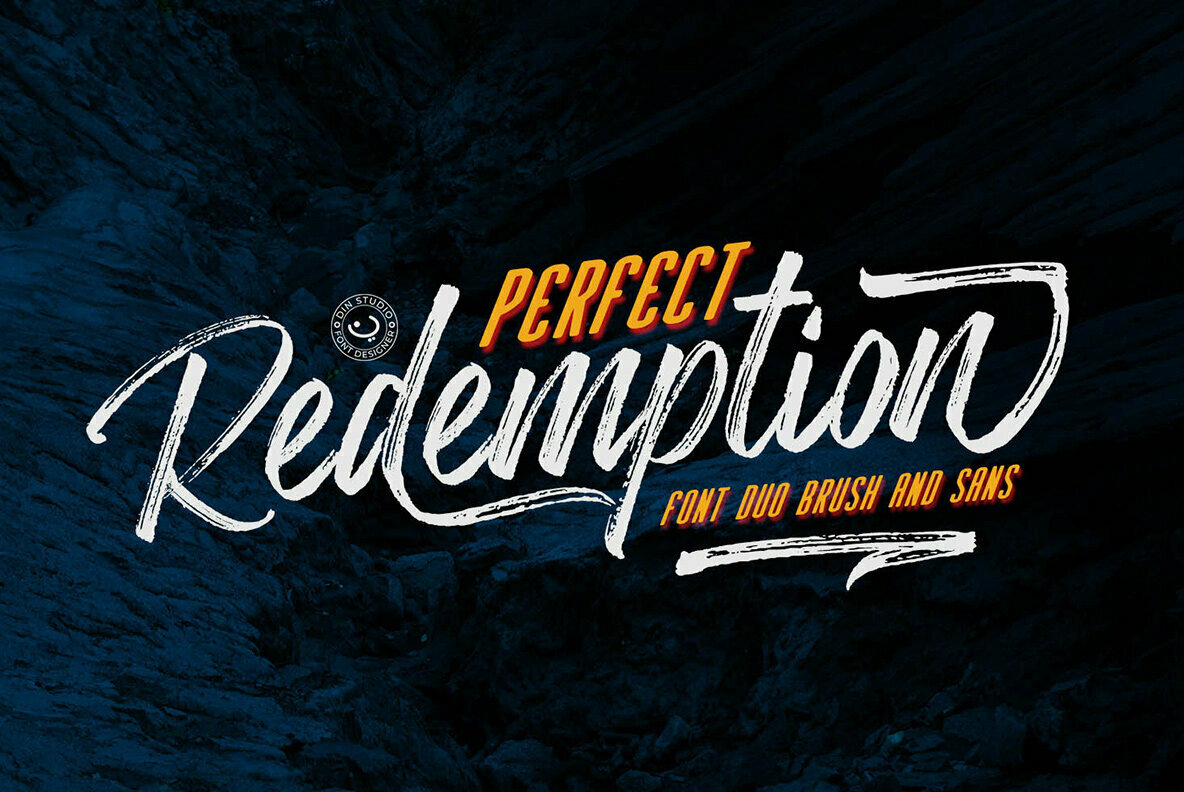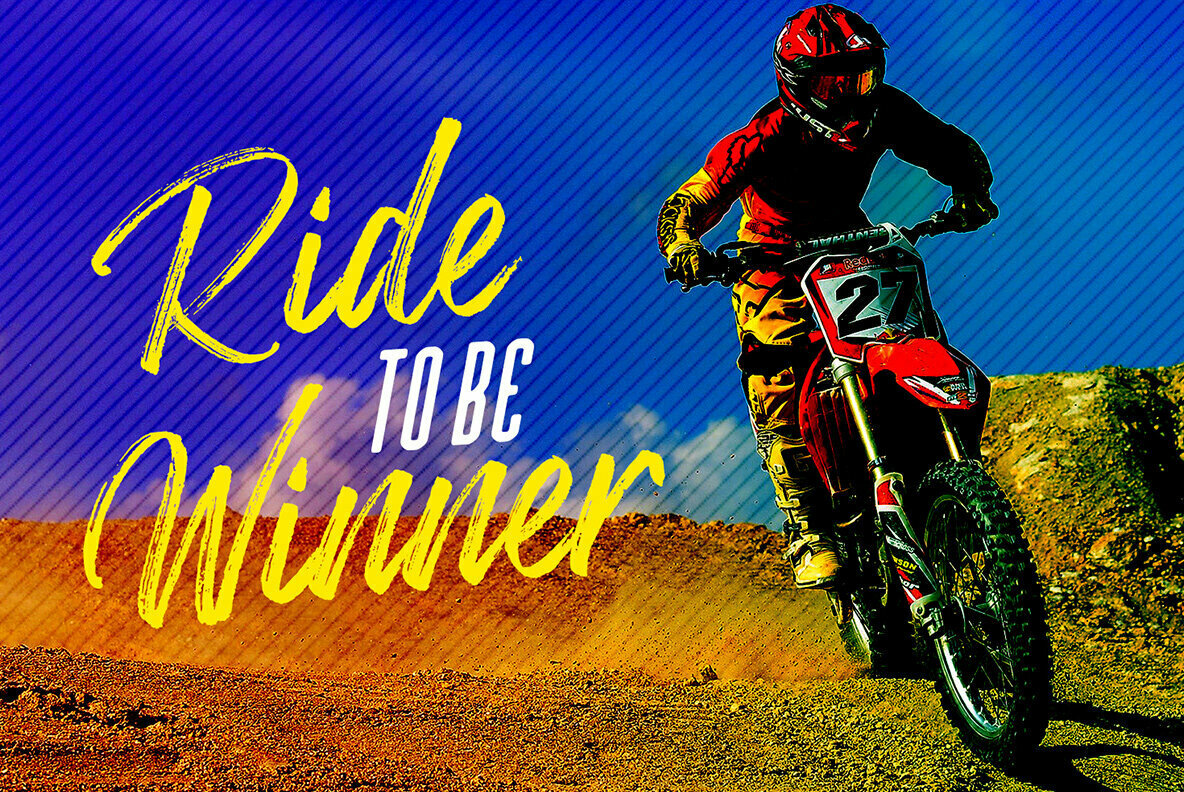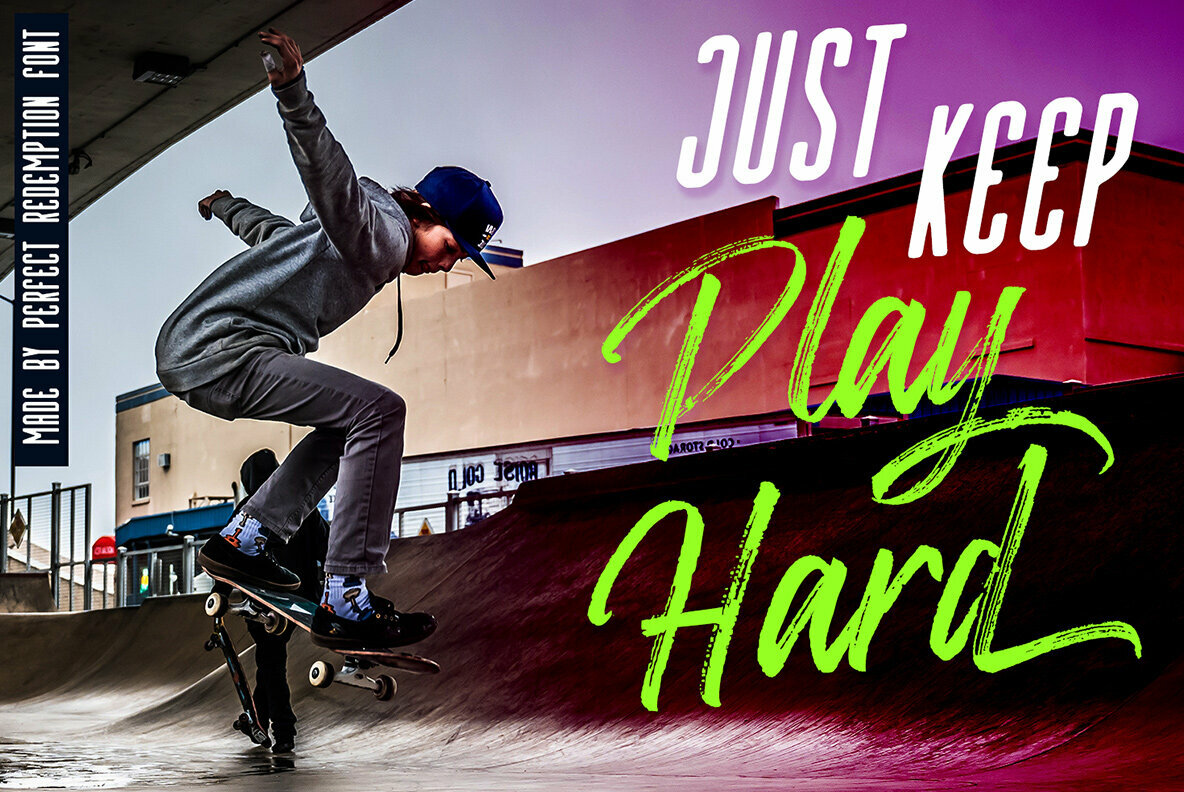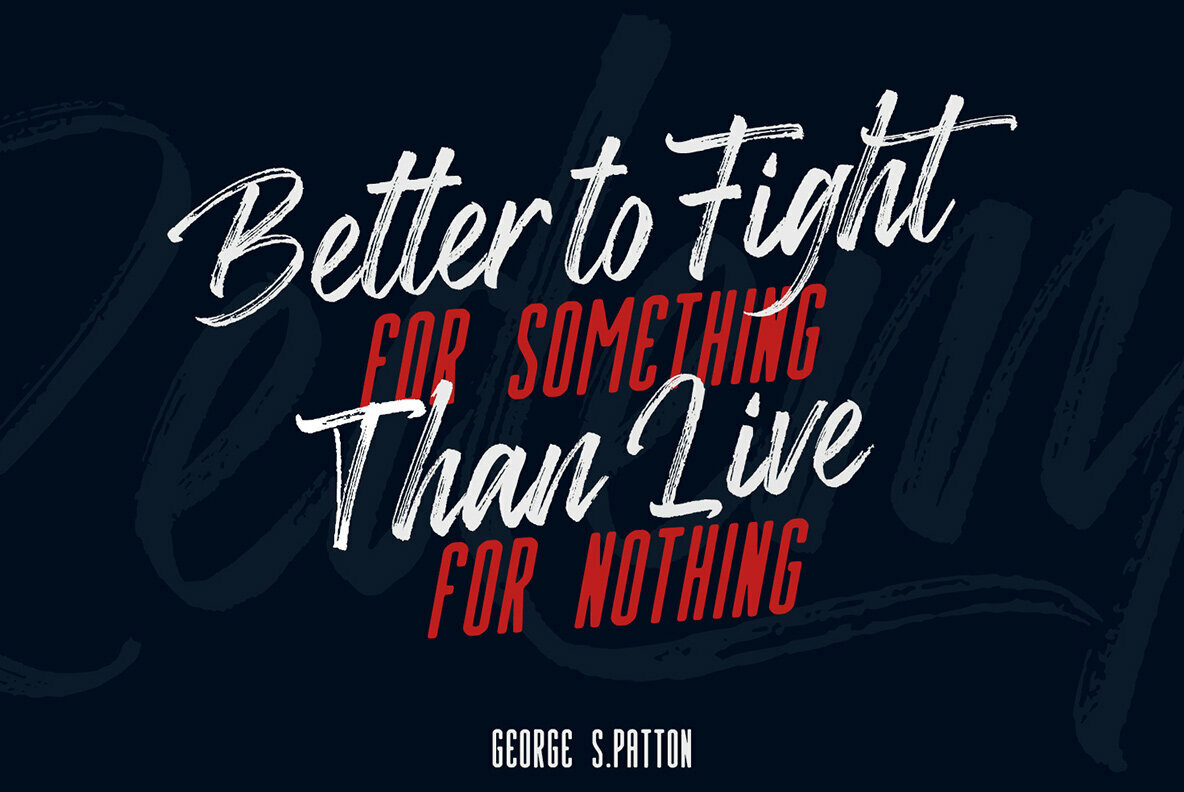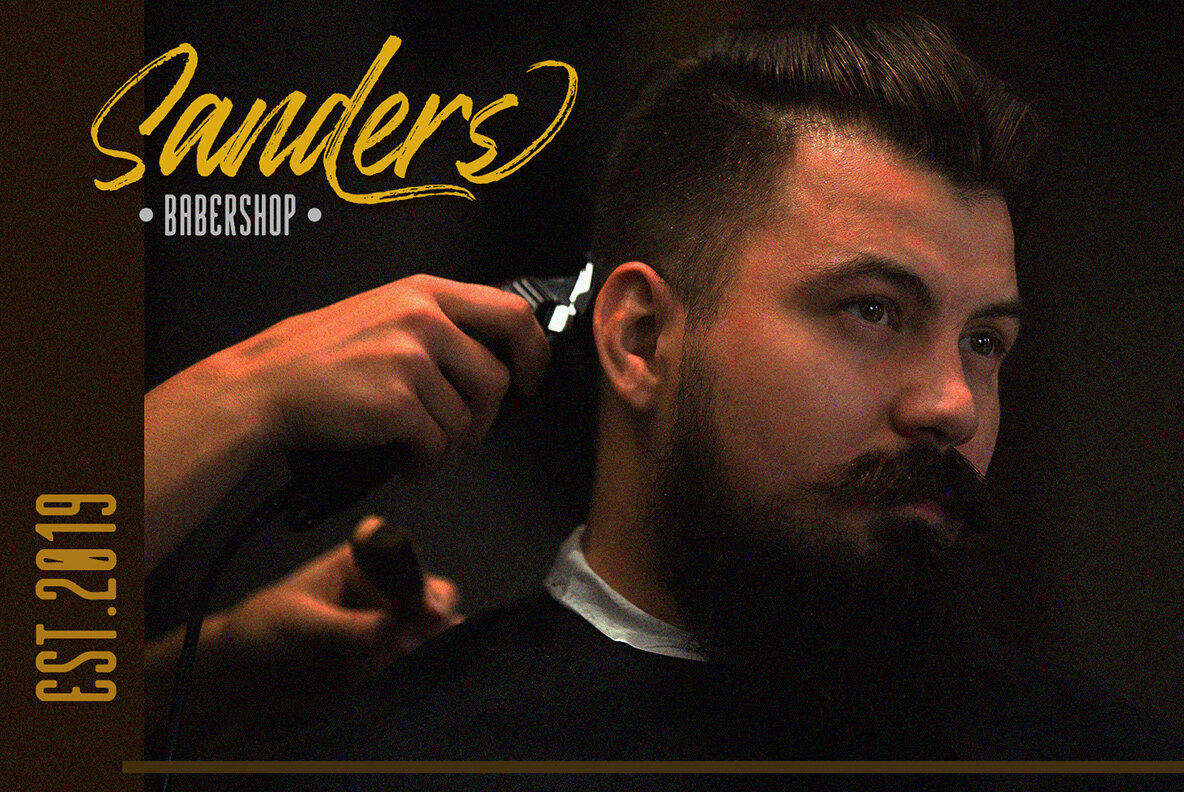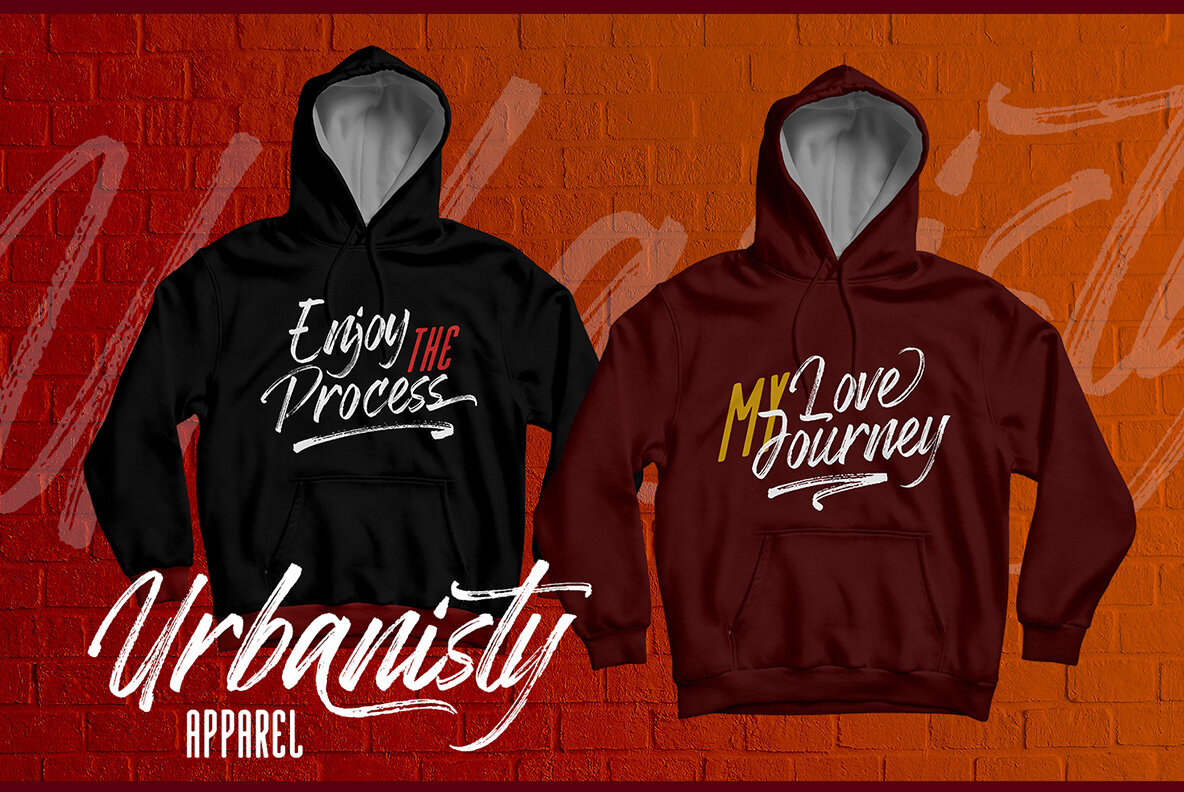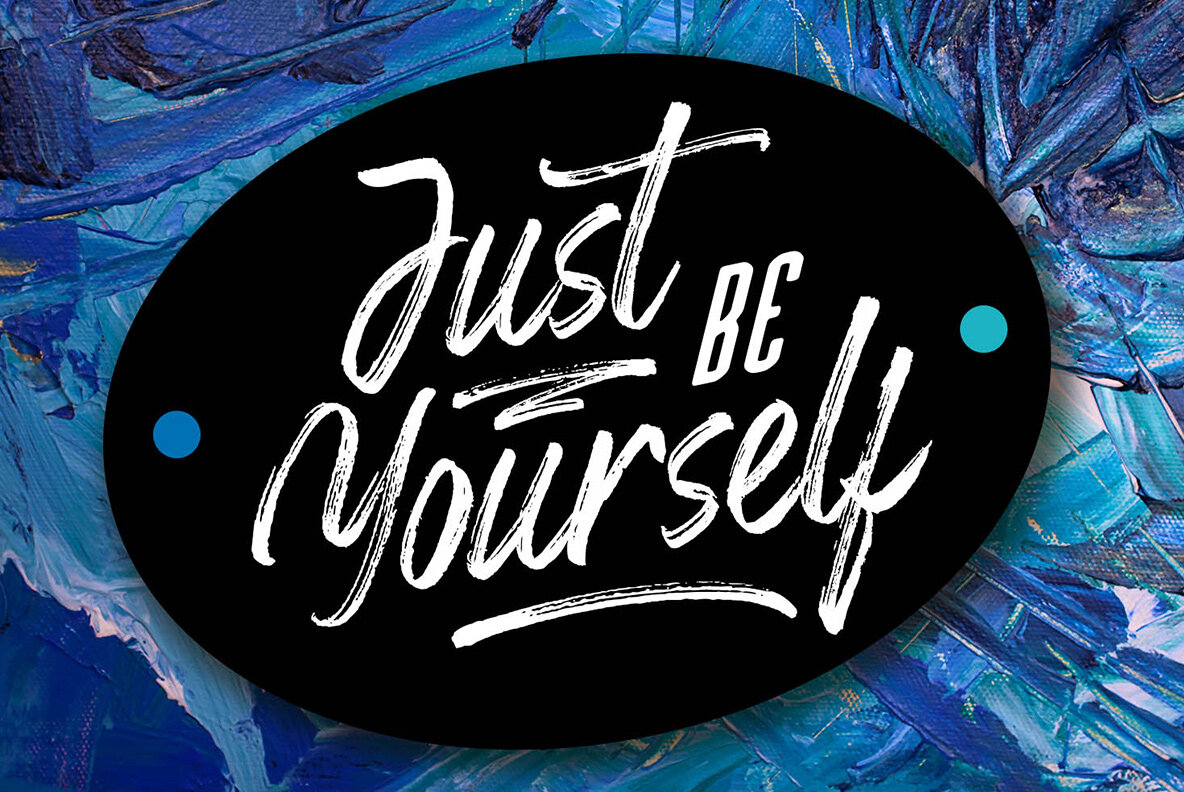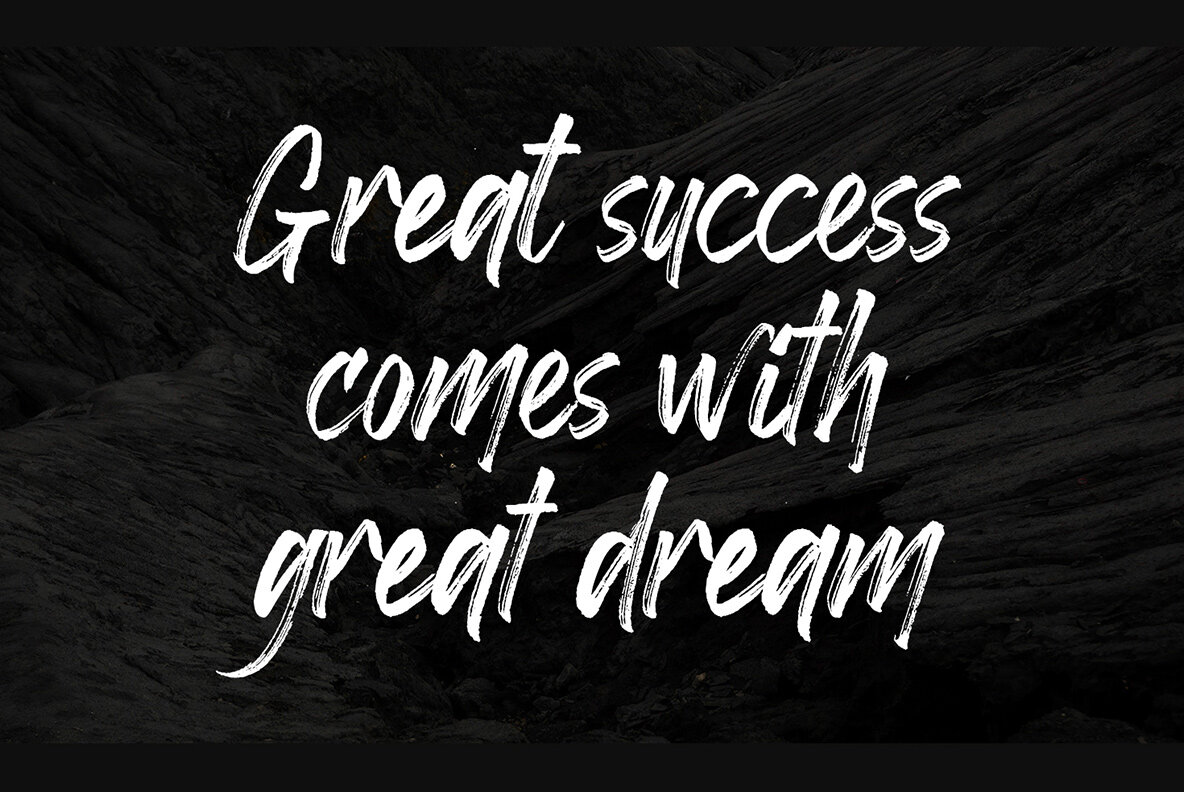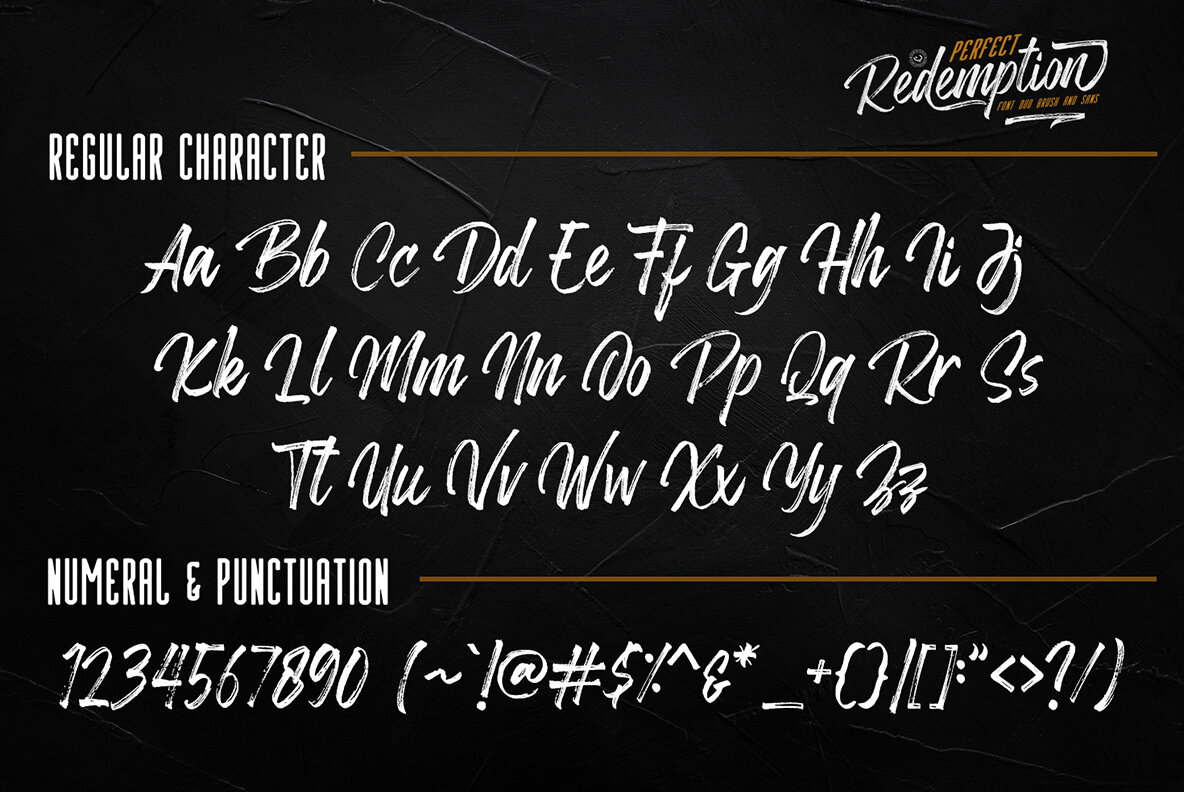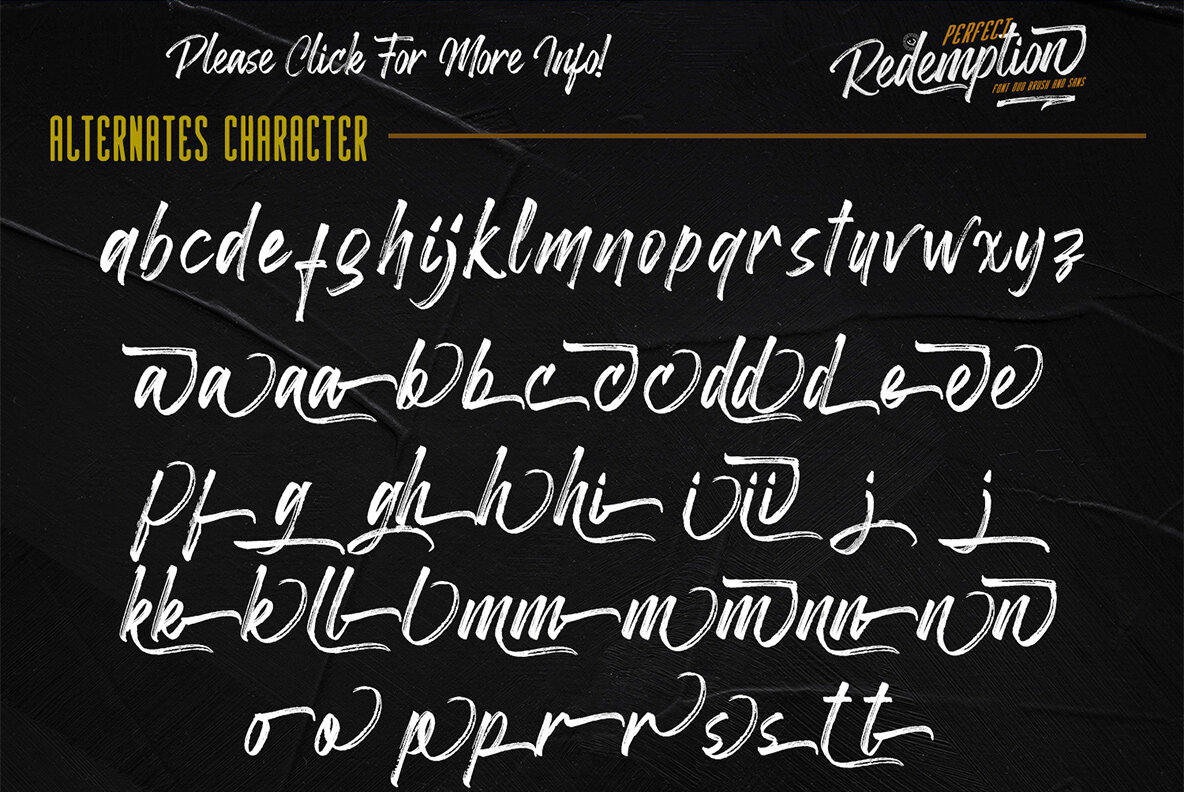
Perfect Redemptation Font Duo
The Perfect Redemption Font Duo, crafted by Din Studio, provides a harmonious blend of brush and sans serif styles. This duo, featuring the textured allure of natural brush strokes, enhances the impact and beauty of your designs. Its versatility makes it an ideal choice for various creative projects, from branding to inspirational quotes and custom t-shirt prints.Perfect Redemption Font Duo: A Distinctive Brush and Sans Combination